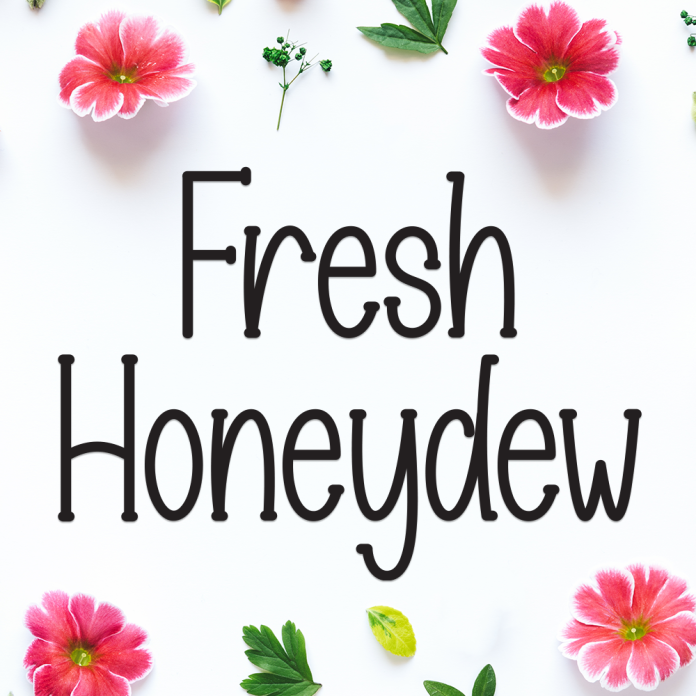
Fresh Honeydew is a delightful and juicy display font that bursts with cheerful vibes. Its rounded edges and bubbly letterforms evoke feelings of freshness, youth, and fun—like a sunny day with a slice of honeydew melon.
Perfect for packaging, kids’ products, logos, party invitations, or any design that needs a splash of sweet personality.
Cute, bold, and rounded display style
Friendly and eye-catching design
Ideal for cheerful branding, posters, and crafts
Bring a taste of joy to your designs with the fresh, fruity charm of Fresh Honeydew.